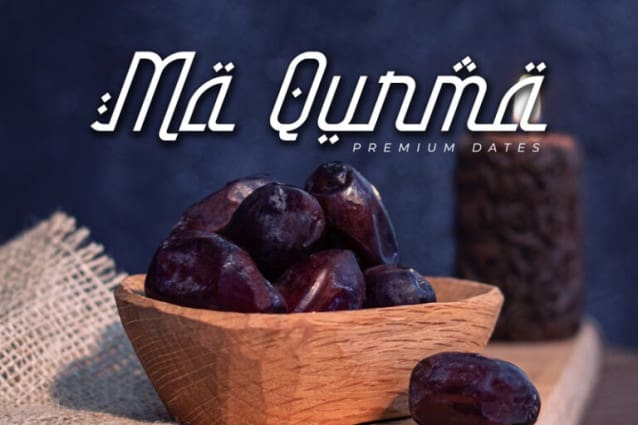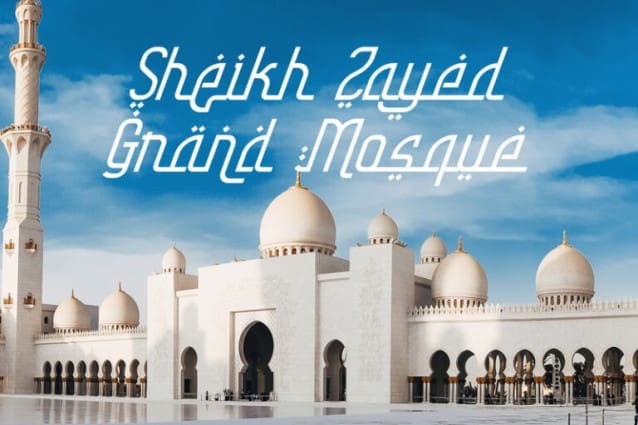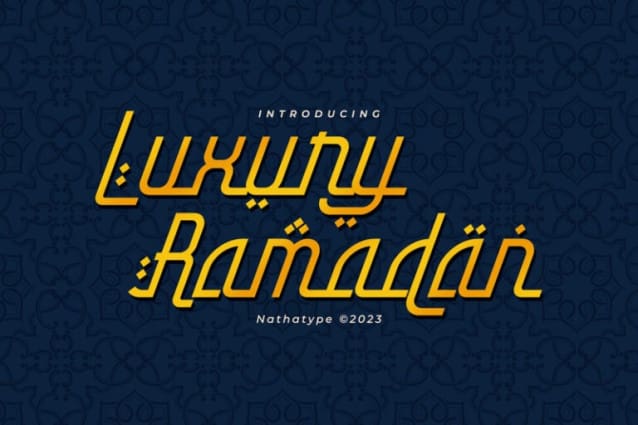
Luxury Ramadan Font
Luxury Ramadan Font is a meticulously designed font that pays homage to the timeless elegance of Arabic calligraphy. With LuxuryRamadan, you have a font that’s more than just a typeface; it’s a bridge between heritage and contemporary design. It’s a versatile tool that allows you to infuse your projects with the timeless beauty and clarity of Arabic calligraphy.
The characters in Luxury Ramadan are thoughtfully crafted with precision, each letter displaying an elegant and sophisticated aesthetic. The sharp and defined shapes add an air of modernity and clear legibility to the font.